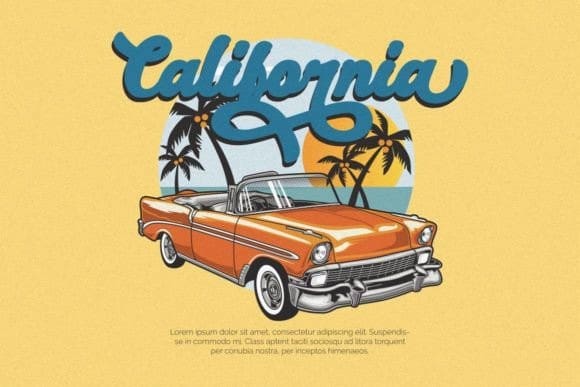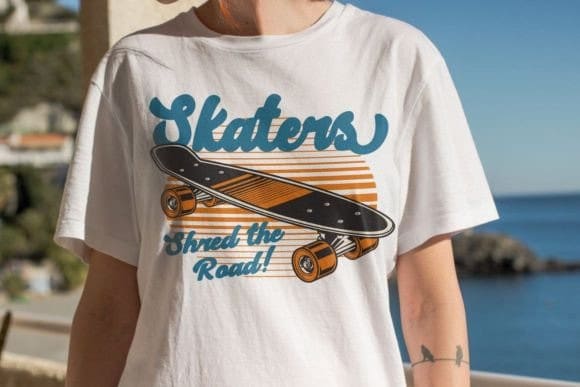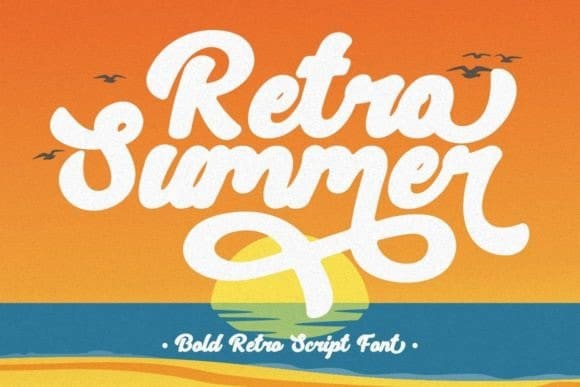
Retro Summer Font
Retro Summer Font – Bold Retro Script Font. In this font, vintage is combined with luxury/aesthetics. So that this font can be used in various projects with retro/vintage and luxury themes. Such as logos, branding, posters, packaging, book covers, clothes/apparel, quotes, titles, and others.